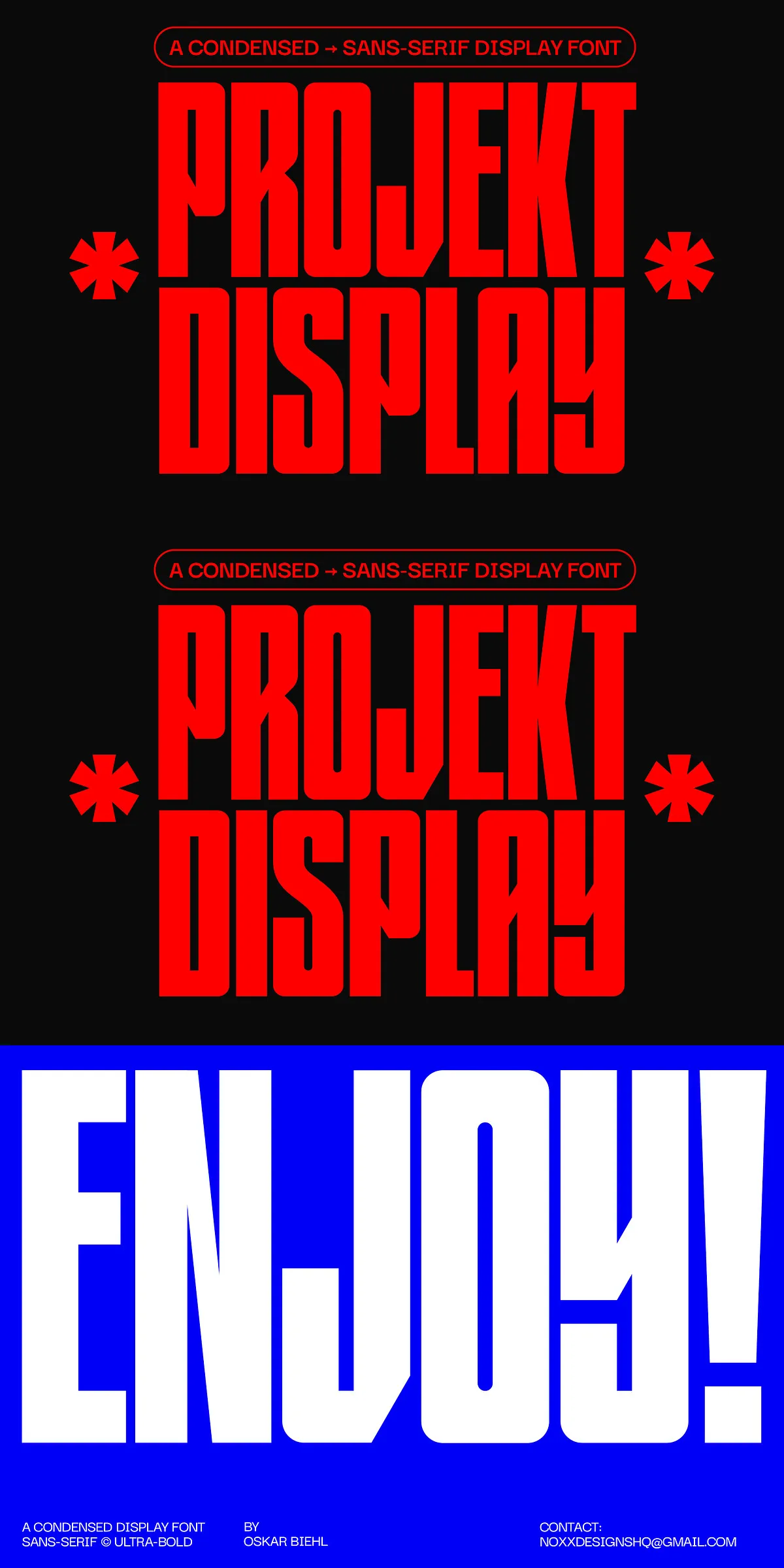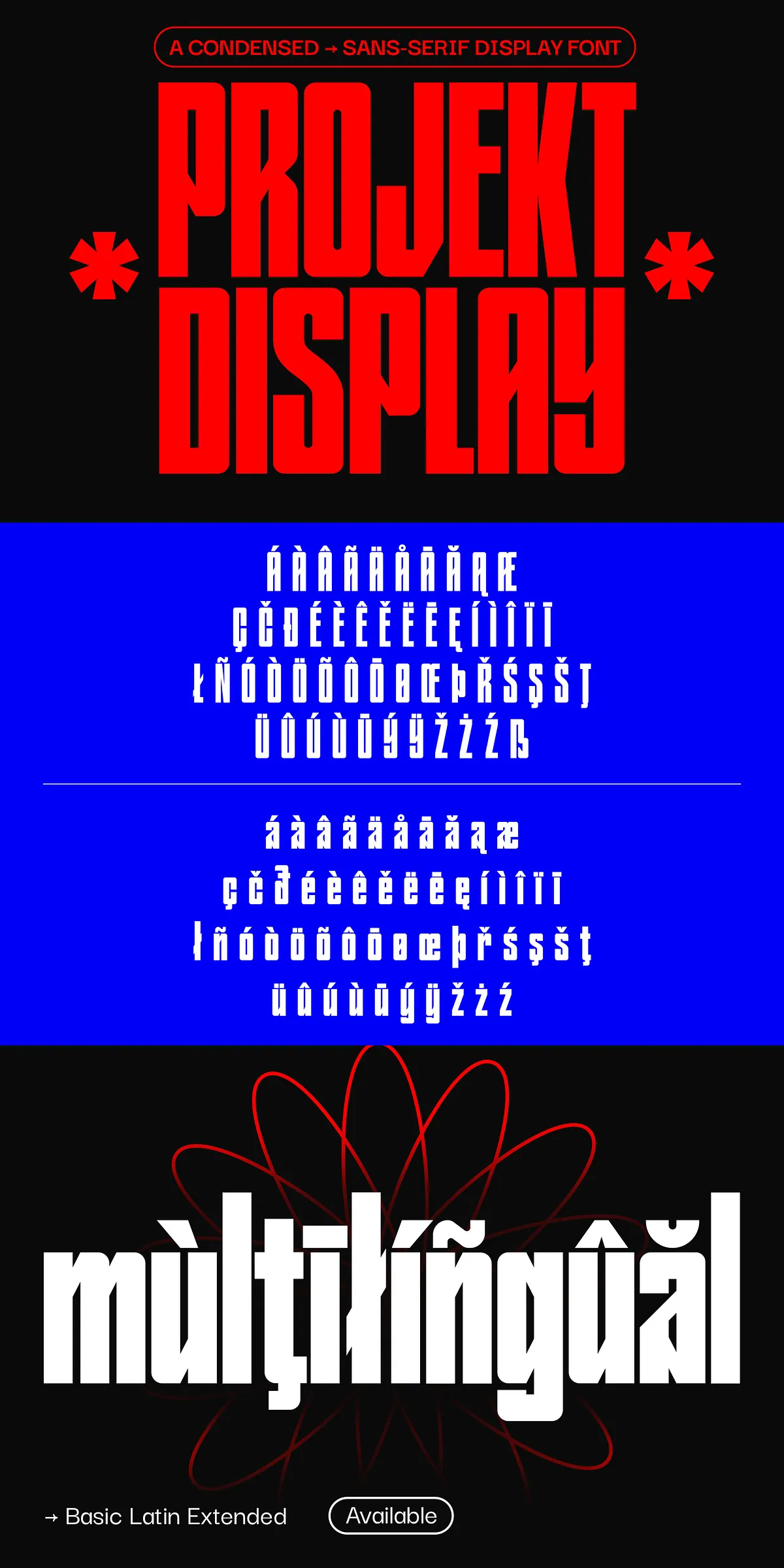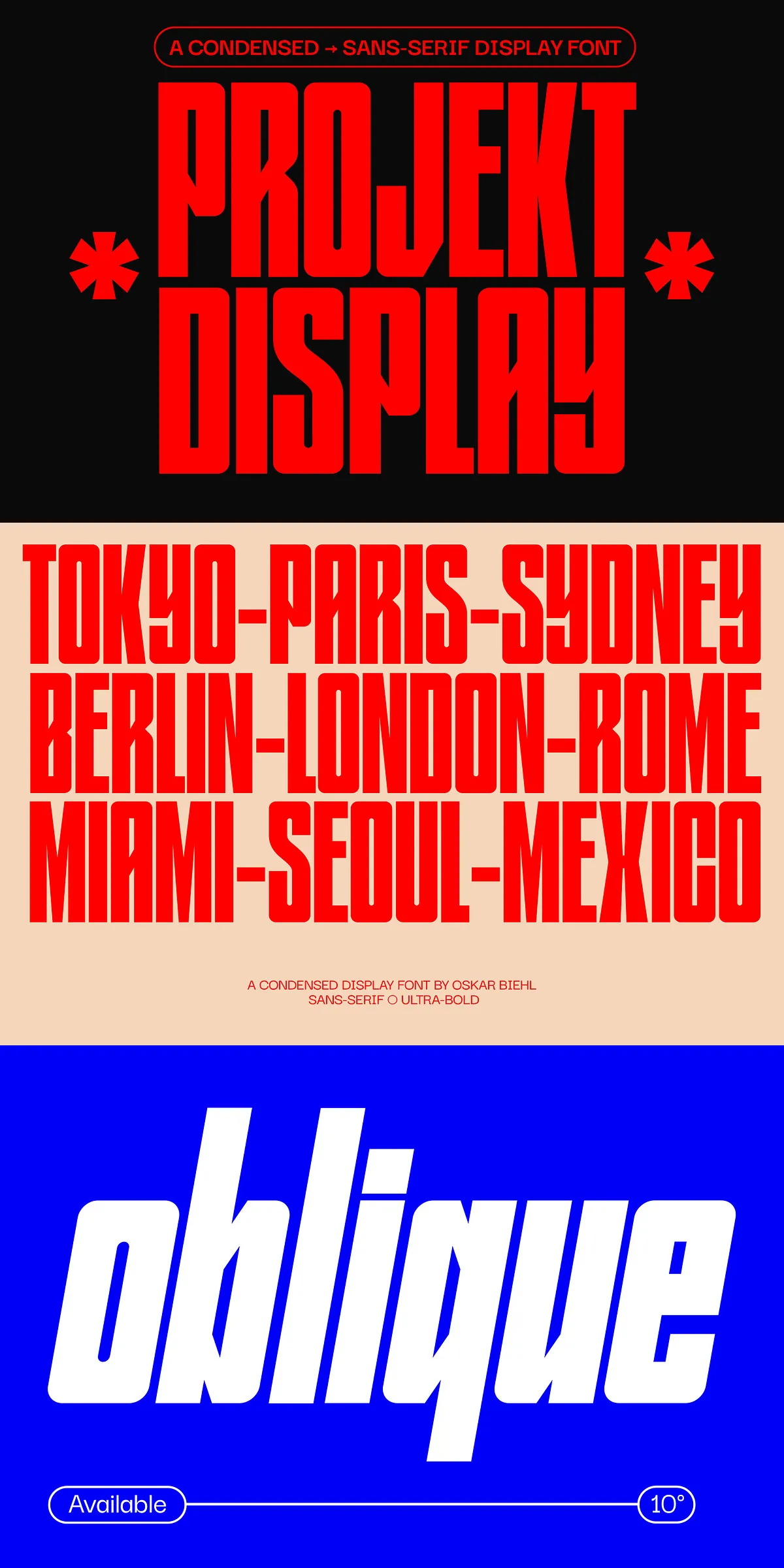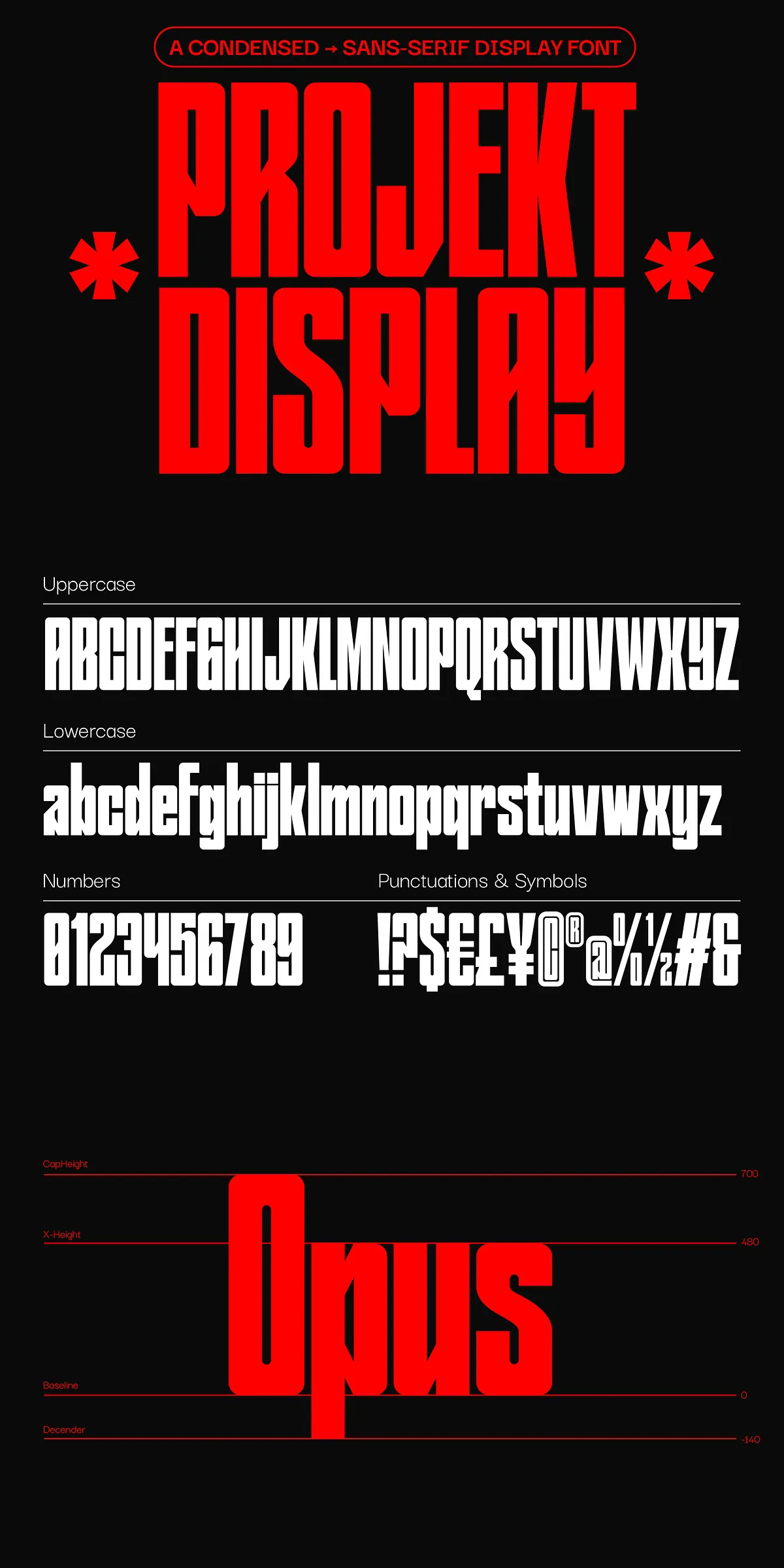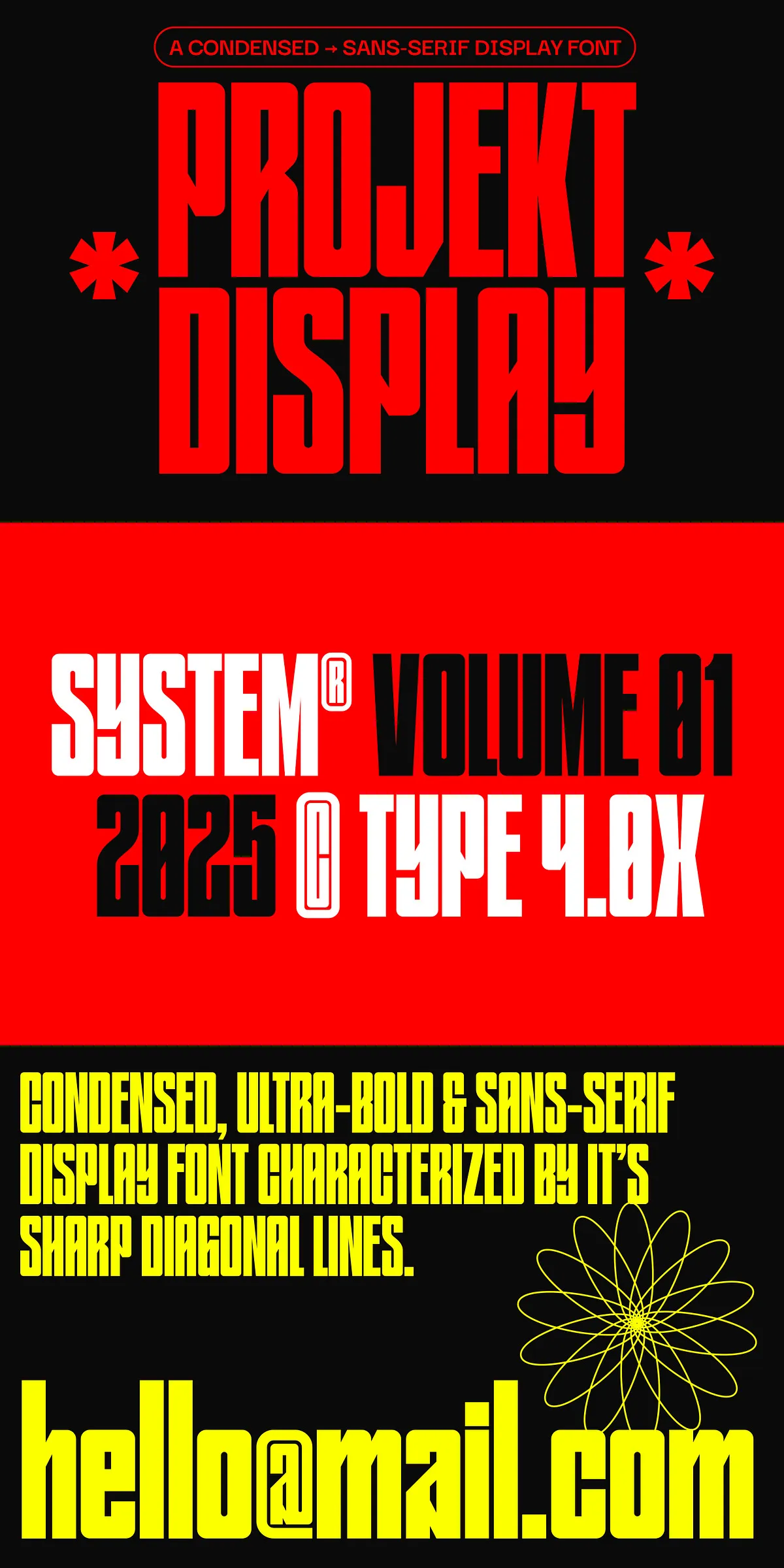
Command Attention with Projekt Display: The Ultimate Condensed Sans-Serif for Bold Design Statements
Stop blending in. Start commanding the spotlight with Projekt Display — a high-impact, condensed sans-serif font engineered for maximum visual punch. Built for designers who prioritize clarity, strength, and edge, Projekt Display cuts through the noise with razor-sharp diagonal lines and a fearless Black weight. This isn’t just a font; it’s a design weapon forged for impact.
Define Your Visual Identity with Unmatched Boldness
Every line in Projekt Display is deliberate, every angle intentional. The font’s signature diagonal strokes create dynamic tension and movement, turning static text into a visual experience. Whether you’re designing a poster, brand logo, or digital banner, Projekt Display ensures your message doesn’t just get seen — it gets remembered.
- Ultra-Condensed Width: Maximizes space without sacrificing legibility. Perfect for tight layouts, headlines, and compact design elements.
- Black Weight (Heavy Impact): Delivers instant dominance. Ideal for titles that need to stand out from day one.
- Italic / Slanted Variant: Adds stylistic flexibility — use it for contrast, emphasis, or to introduce motion in your layout.
- Comprehensive Latin Support: Fully covers Basic Latin, Lowercase & Uppercase letters, numbers, punctuation, and a broad range of Latin Extended characters for international use.
Leverage Precision Design for Maximum Visual Flow
Projekt Display’s sharp geometric structure isn’t just aesthetic — it’s functional. The clean, straight lines and acute angles provide a sense of modernity and precision, ideal for tech, fashion, music, and lifestyle branding. The font’s compact form allows for high-density text blocks without clutter, making it perfect for editorial layouts, app interfaces, and display advertising.
Use the italic variant to break rhythm — introduce a slanted line of text for contrast or to draw attention to a subheading. Its clean, uncluttered structure ensures readability even at small sizes, proving that boldness doesn’t have to come at the cost of clarity.
- Effortless Scalability: Maintains crisp, clean lines at any size — from mobile interfaces to massive billboards.
Perfect for High-Impact Design Applications
Deploy Projekt Display where dominance matters:
- Branding & Logos: Craft a bold brand identity with a wordmark that speaks power and modernity.
- Posters & Advertising: Make headlines pop with aggressive geometry and minimal white space.
- Music & Fashion Campaigns: Match the energy of pop culture with a font that feels contemporary and edgy.
- Web Headers & UI Elements: Stand out with navigation labels, hero text, and buttons that demand attention.
- Editorial Design: Use it to break up sections or highlight key quotes in digital magazines.
Future-Ready. Impact-Driven. Unstoppable.
Projekt Display isn’t a temporary trend — it’s a foundational tool for creators who seek control, clarity, and influence in every design. With scalable formats, consistent performance, and a design language that ages gracefully, this font is ready for today’s demands and tomorrow’s projects.
Stop designing softly. Start defining boldly. Choose Projekt Display — where every letter delivers a statement.